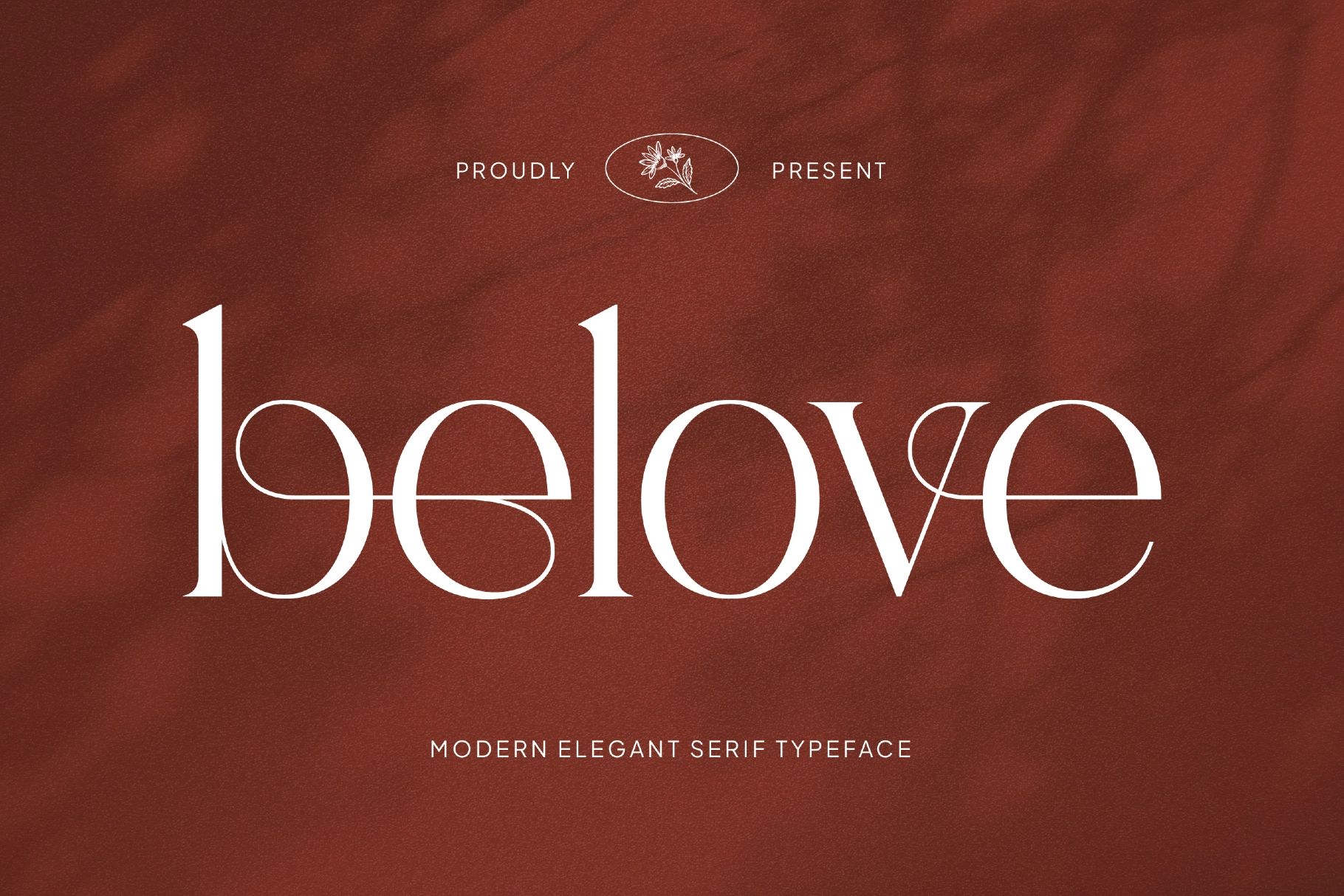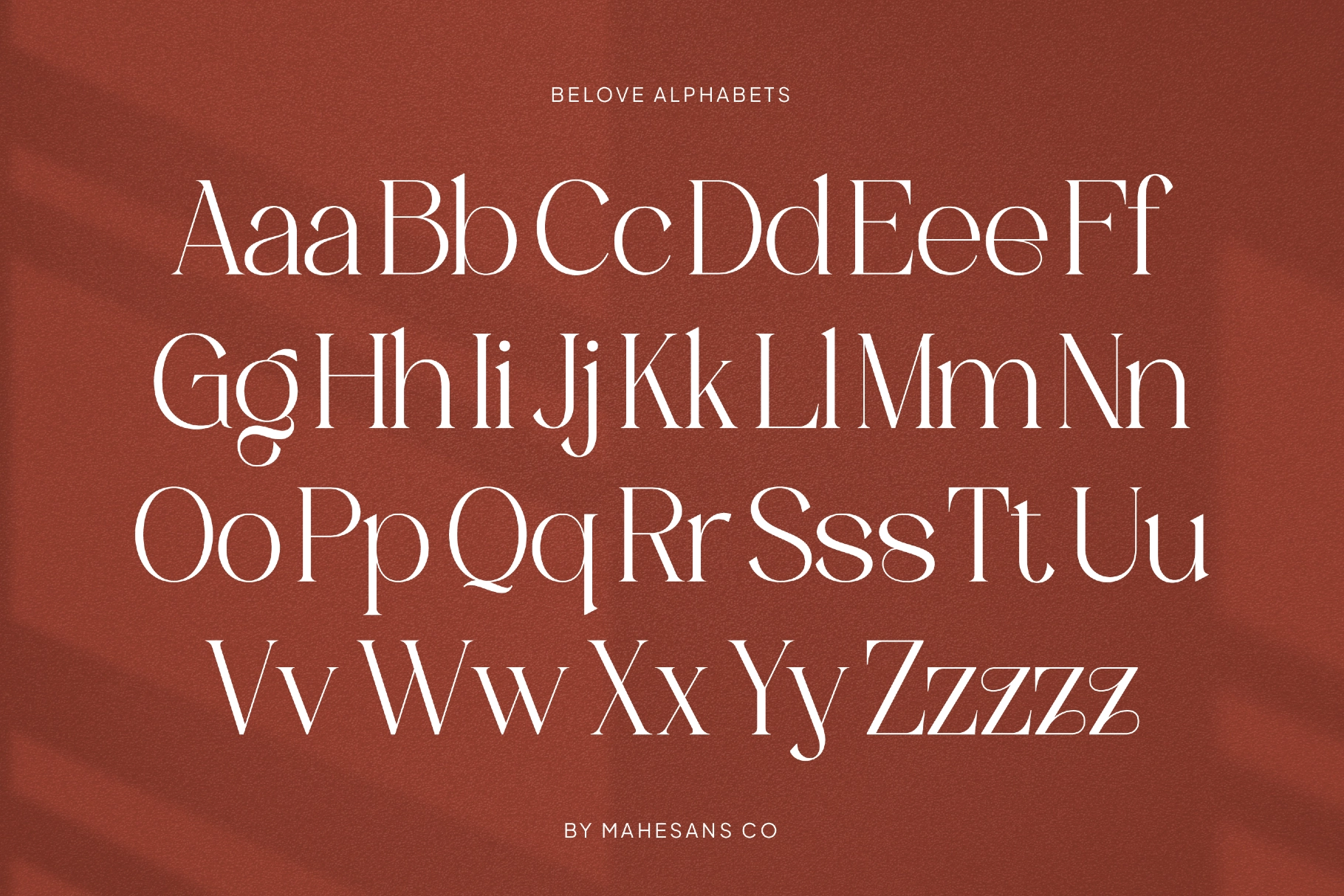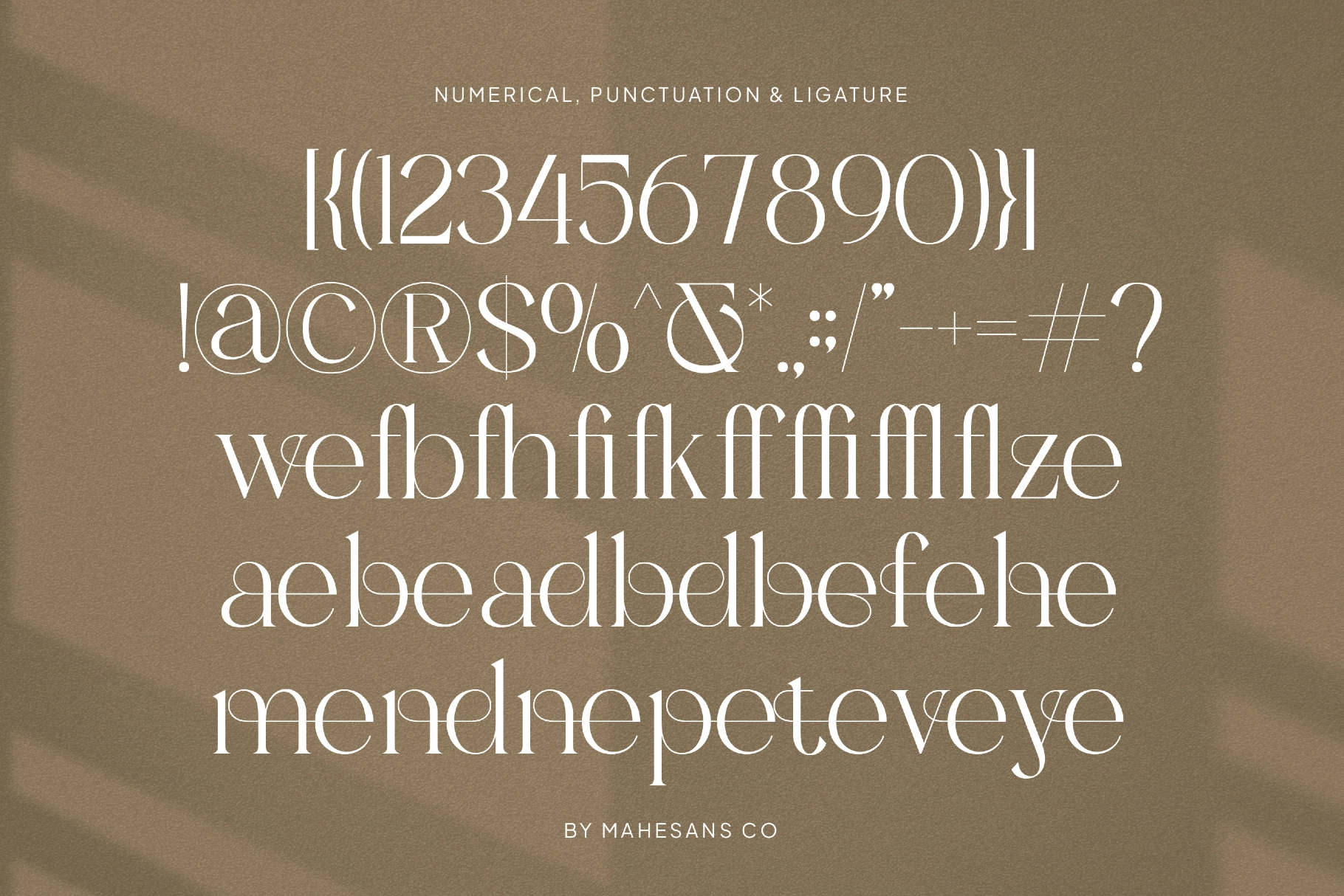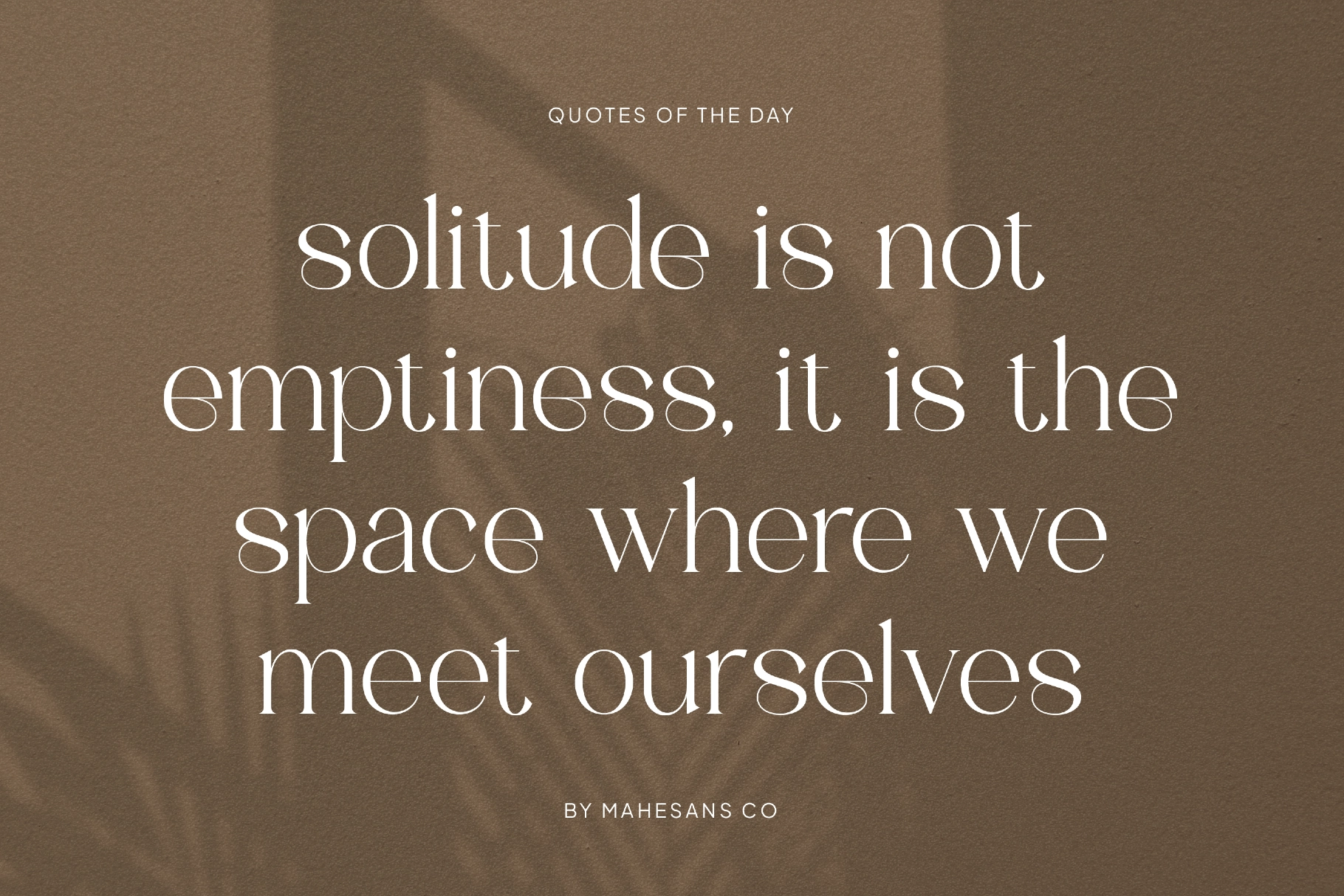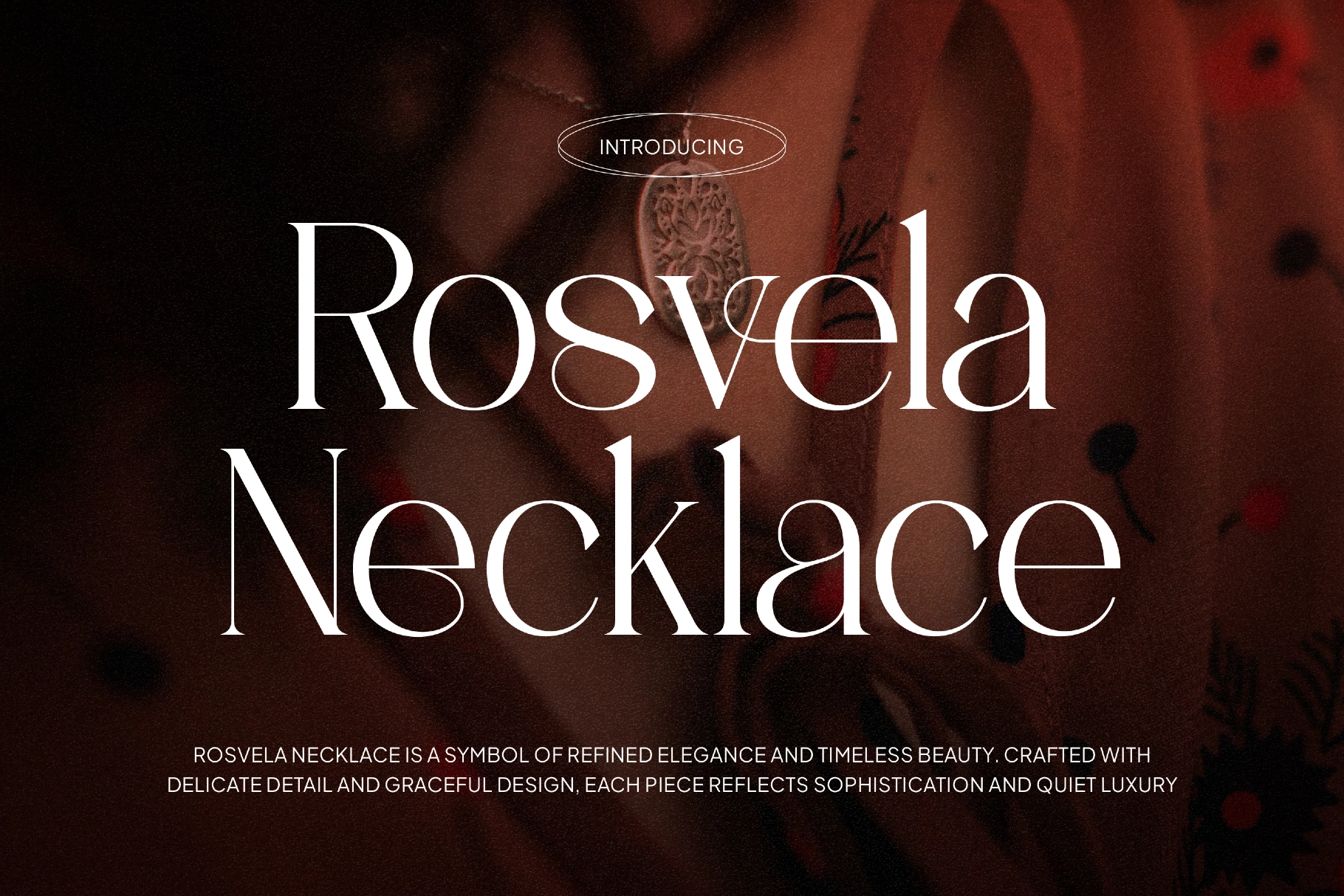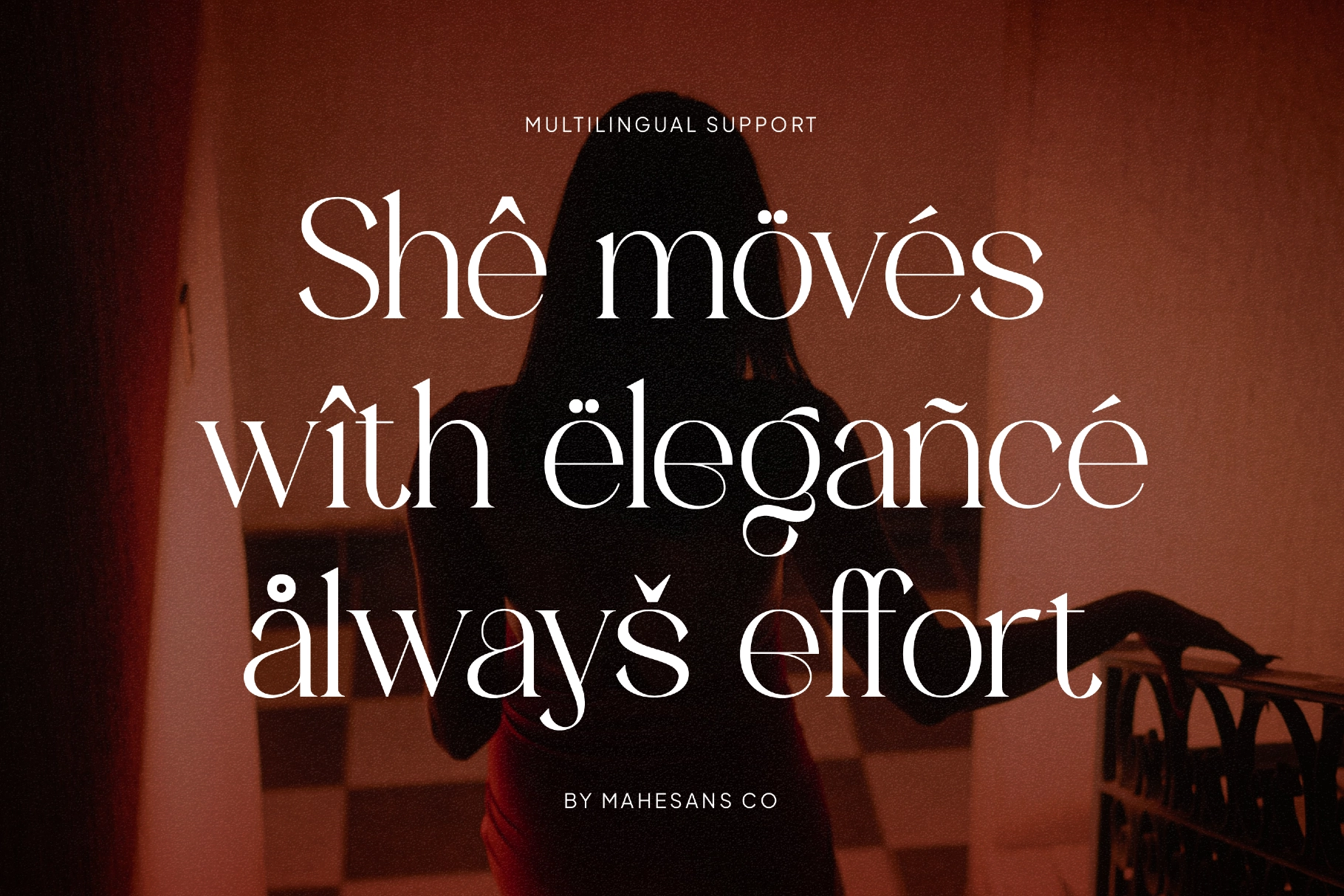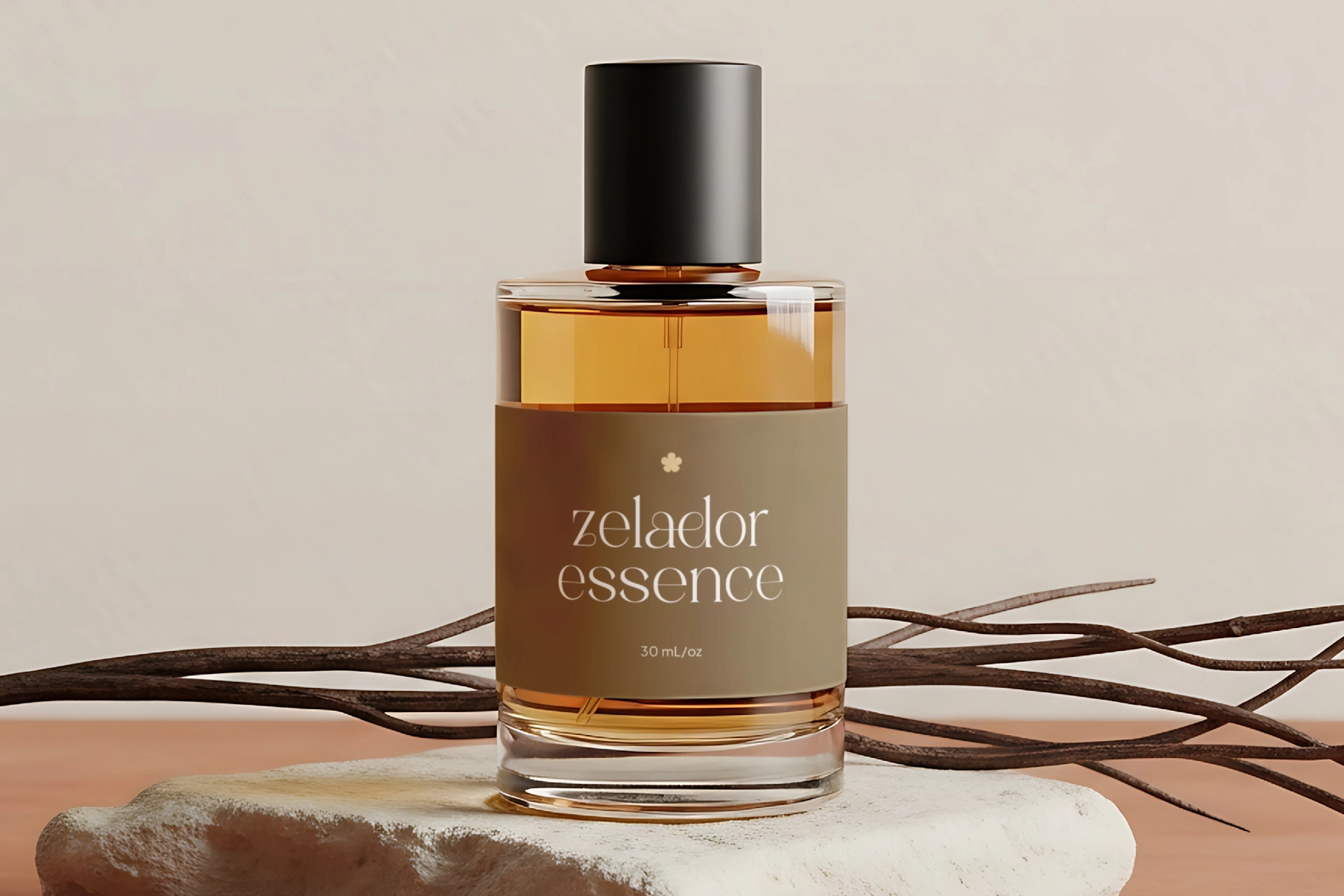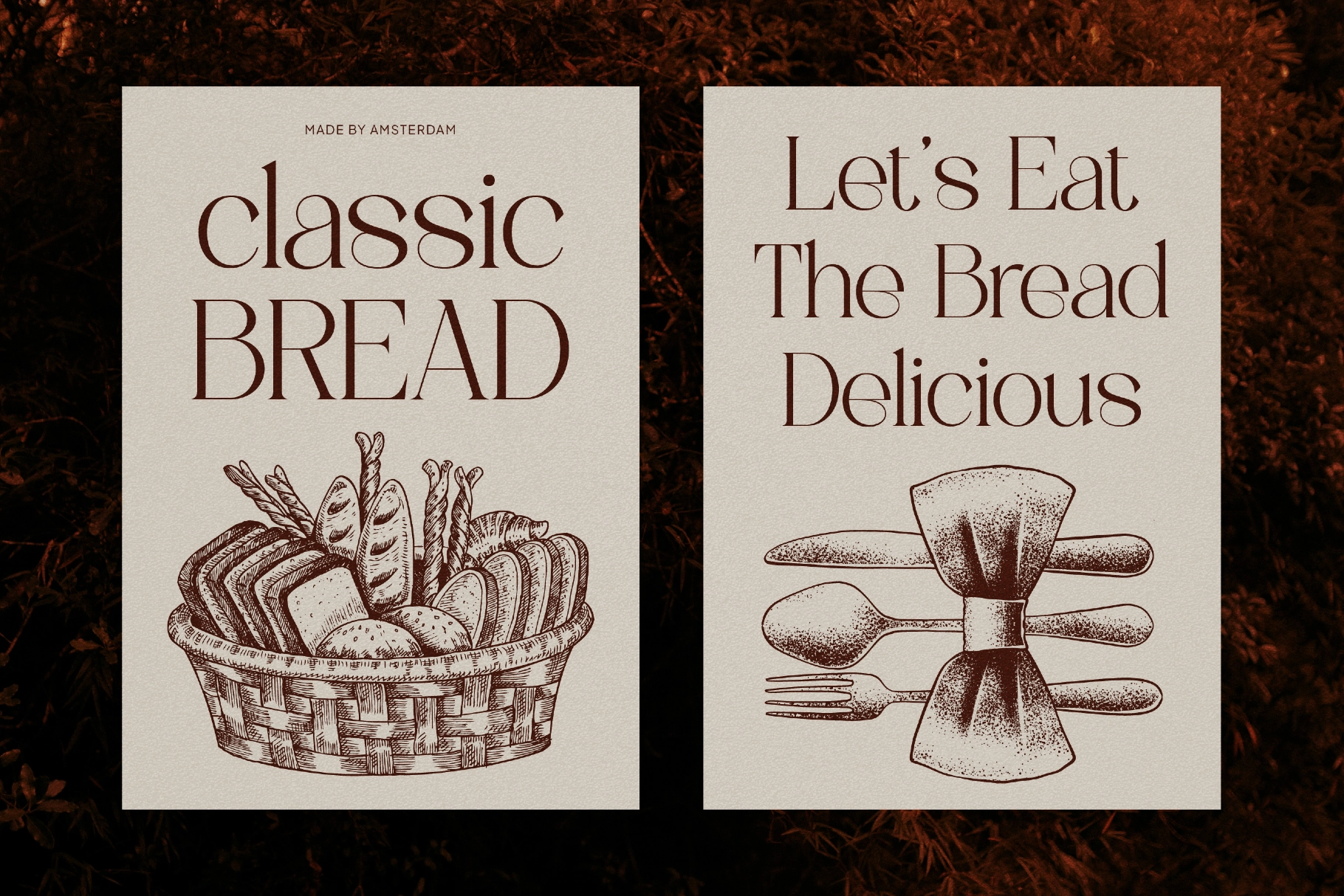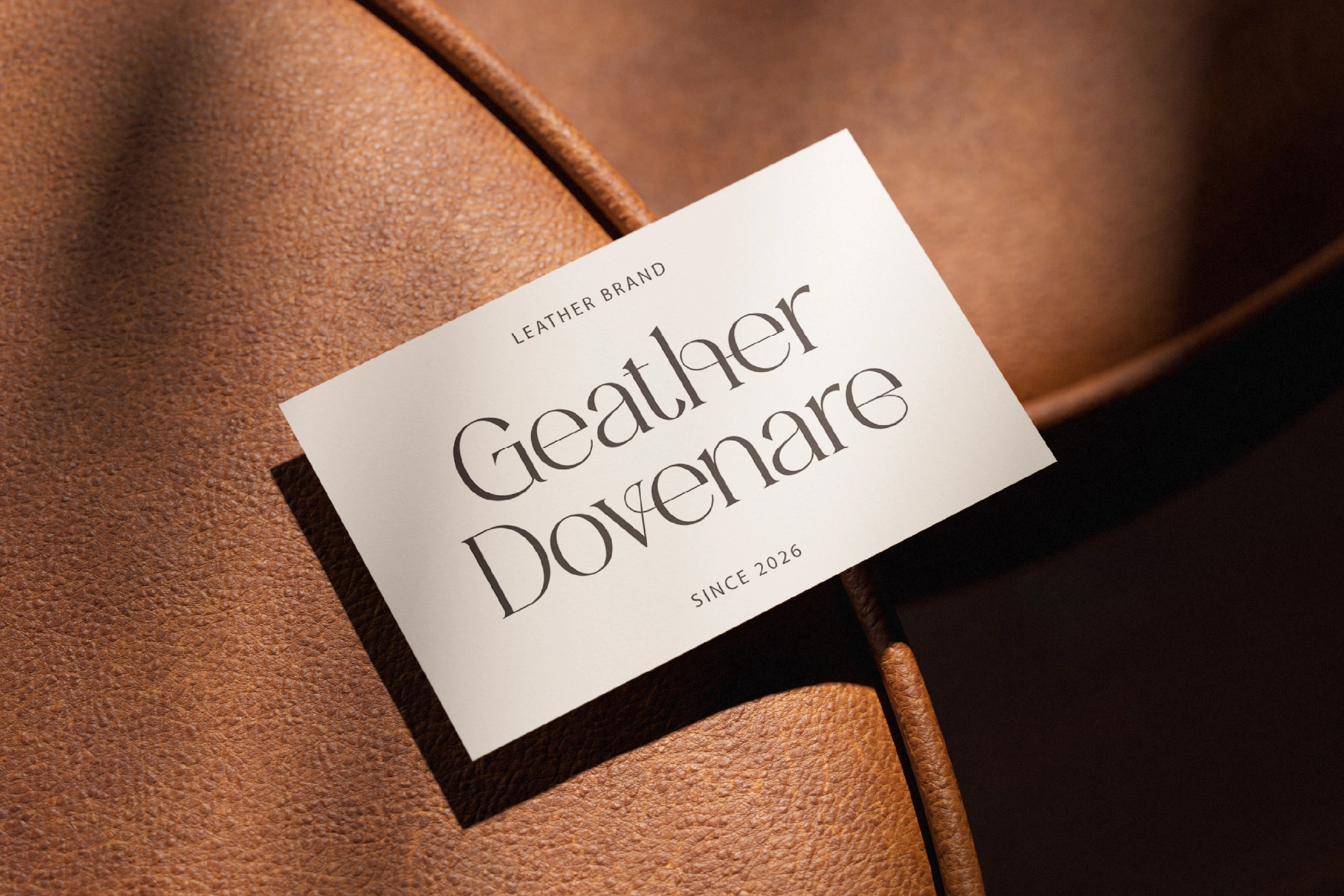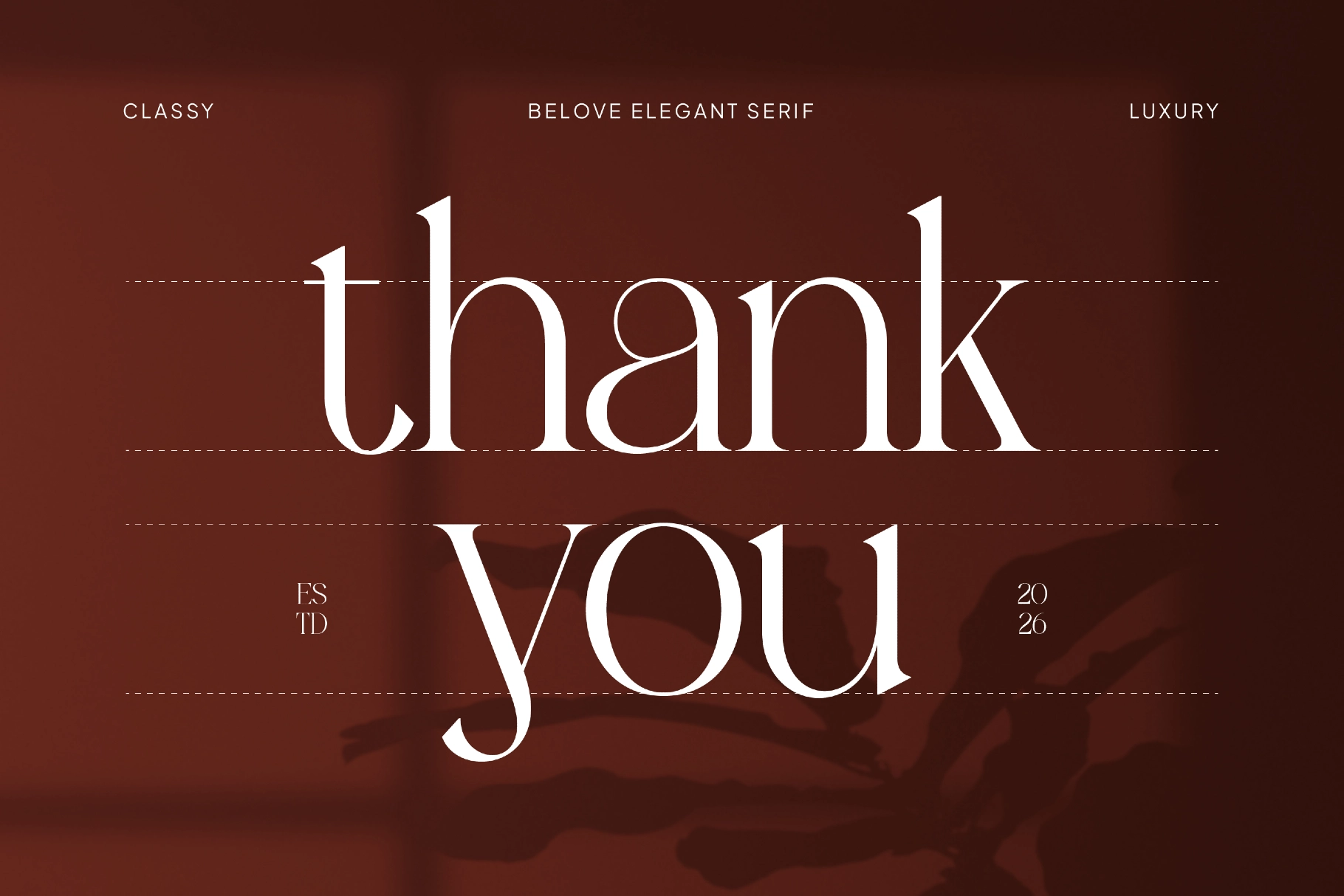
Belove – Modern Elegant Serif Font
Belove
This elegant serif carries a polished editorial character with high-contrast strokes, thin hairlines, and graceful curves. Its letterforms are refined but expressive, with sculptural ligatures that give headlines, logos, and display typography a clear signature.
Belove is made for luxury branding, fashion campaigns, beauty packaging, wedding invitations, magazine covers, boutique logos, quote graphics, restaurant identities, perfume labels, social media posts, stationery, and more. It works especially well in compositions that need a poised, romantic, and expensive-looking voice without shouting across the room.